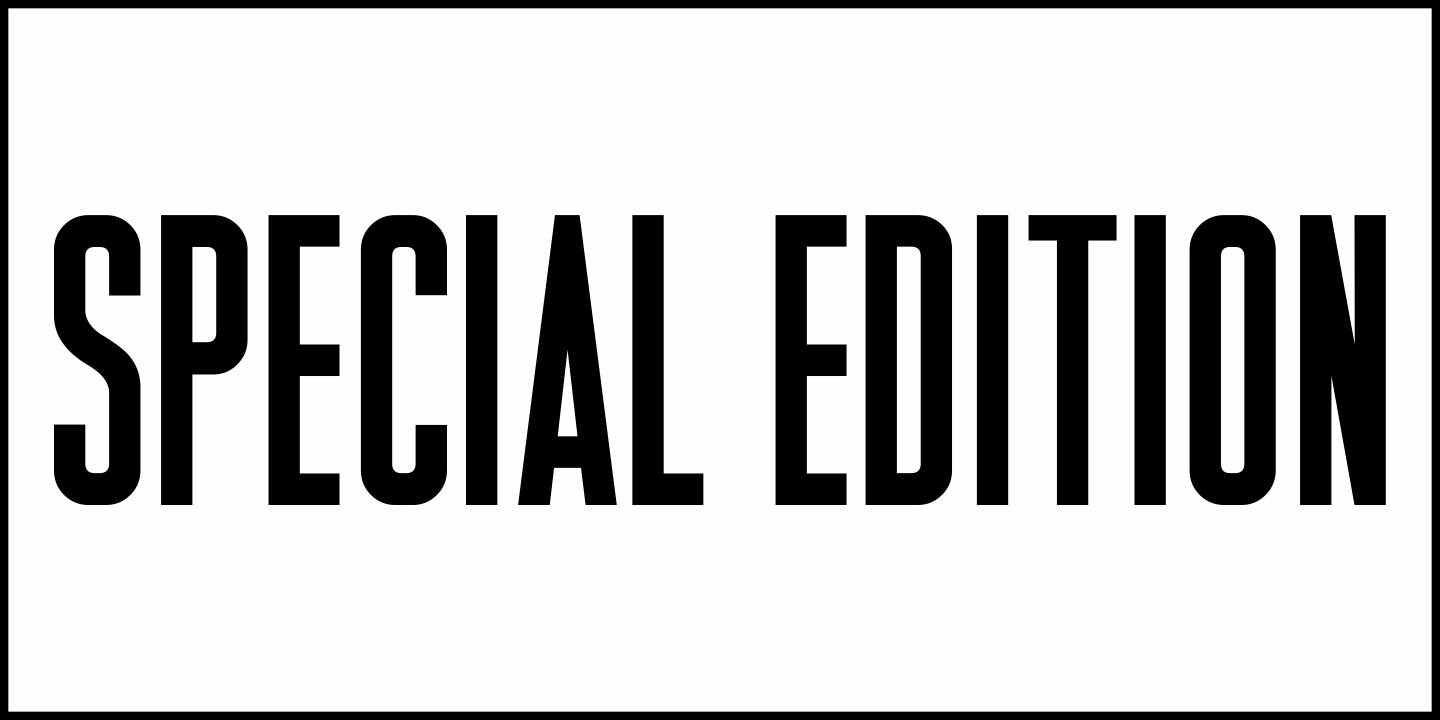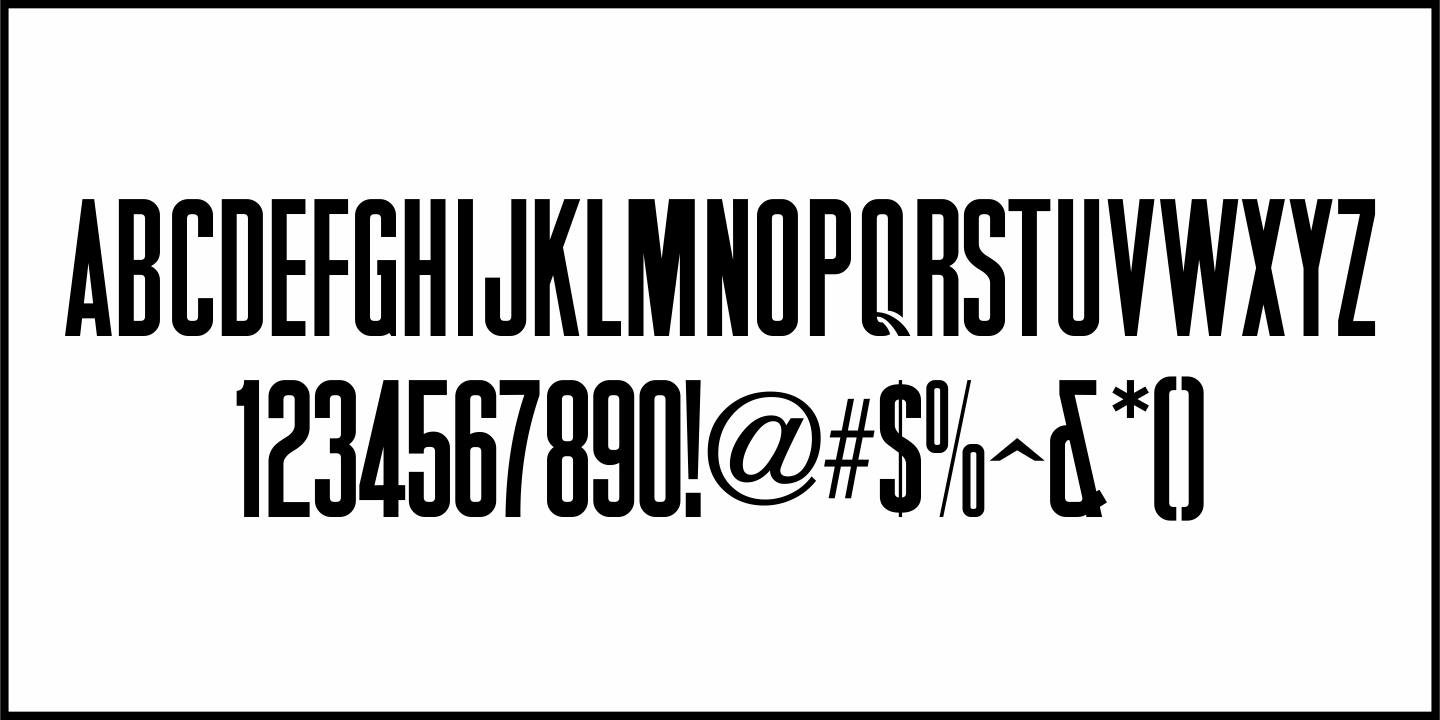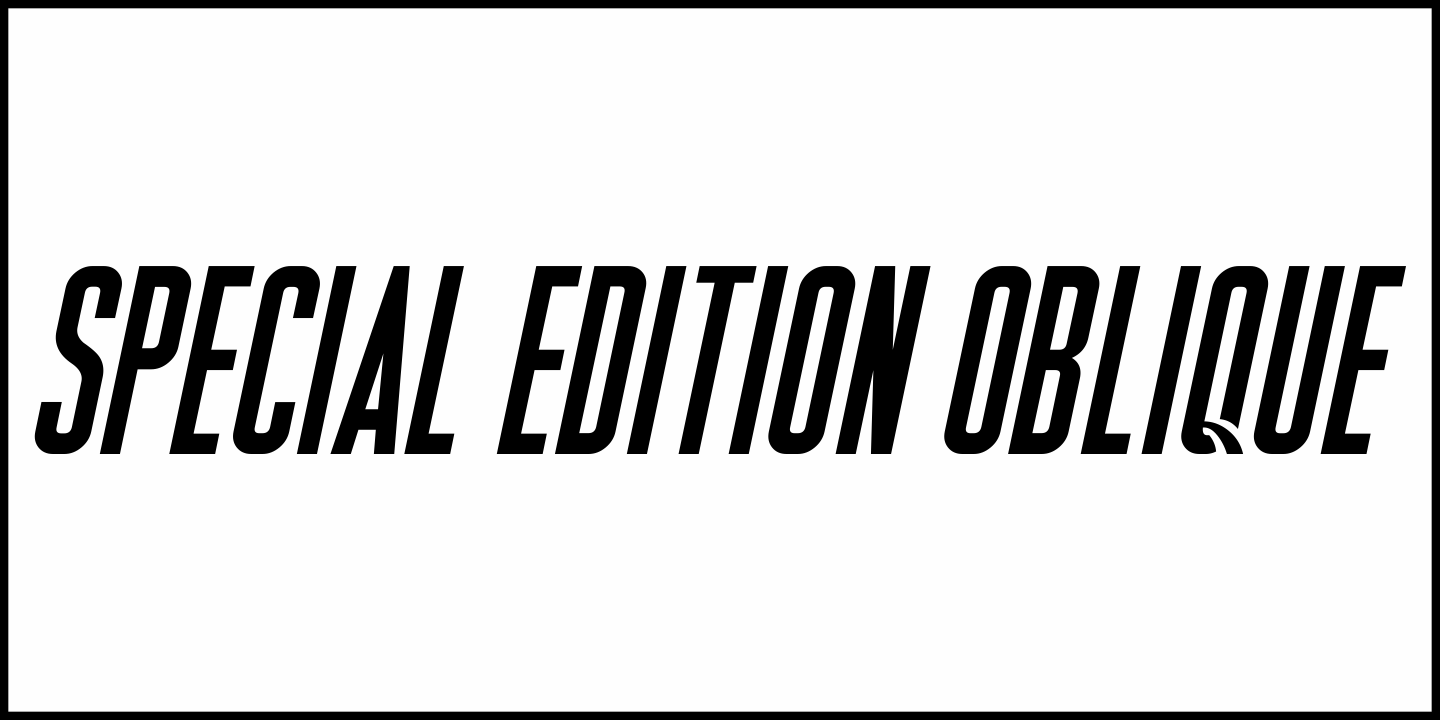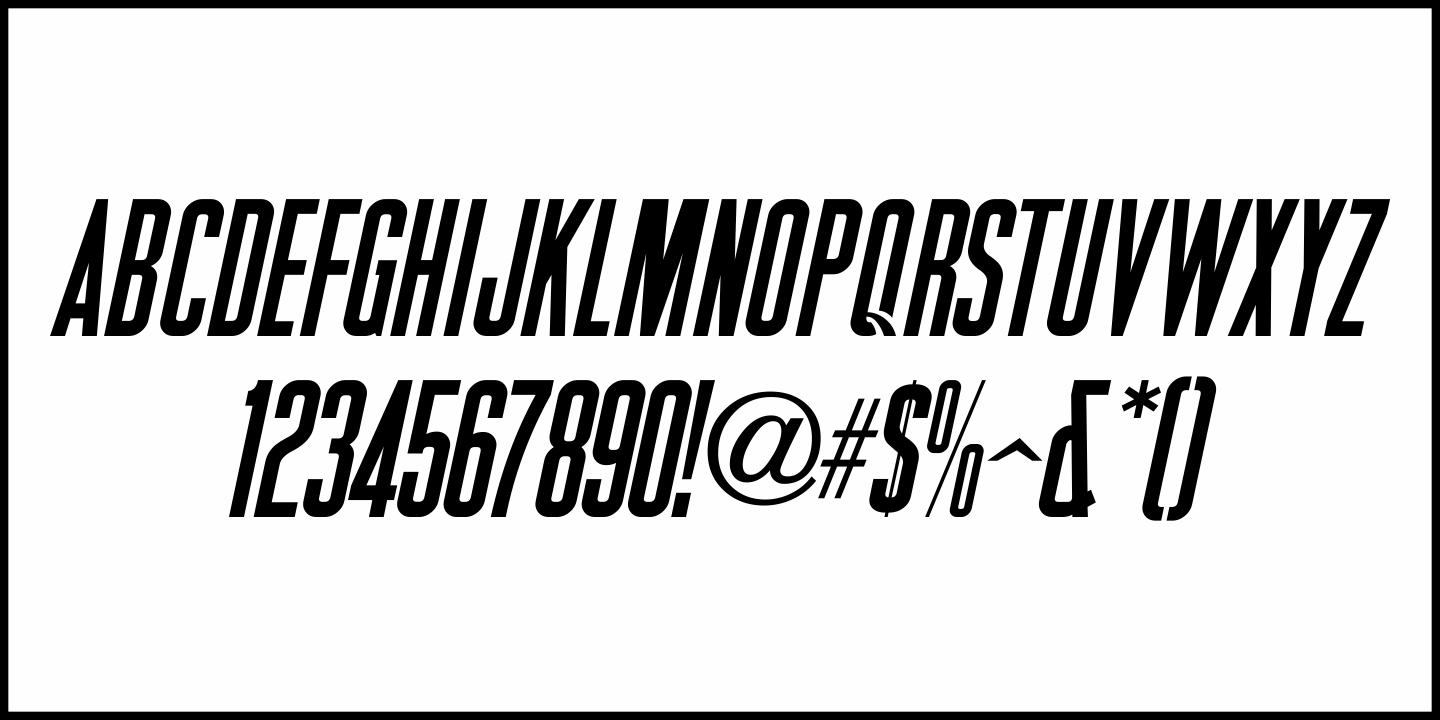
Special Edition
The Teapot Dome scandal was a 1920s bribery scandal involving Secretary of the Interior Albert Bacon Fall. Fall leased Navy petroleum reserves at Teapot Dome in Wyoming [along with some California reserves] at low rates with no competitive bidding.
The San Francisco Examiner for Feb. 20, 1924 ran the two line headline “U.S. Senator Named as Oil Stock Speculator; Whitney to Face Quiz Today on Slush Fund”.
The headline was set in a condensed, slightly squared sans serif typeface. This is now available as Special Edition JNL in both regular and oblique versions.
Special Edition JNL Regular by Jeff Levine Fonts